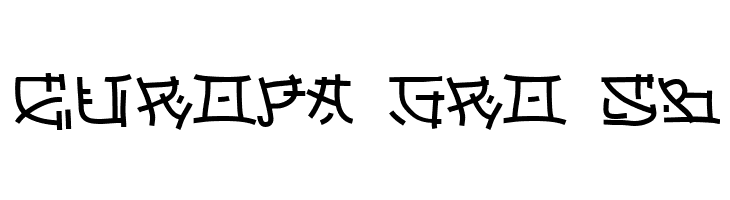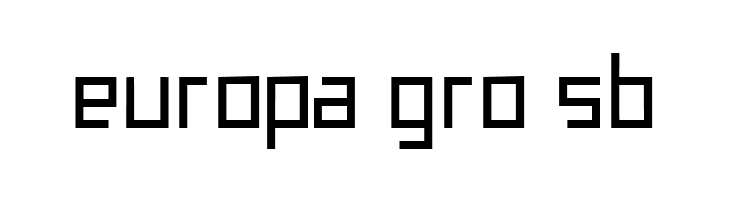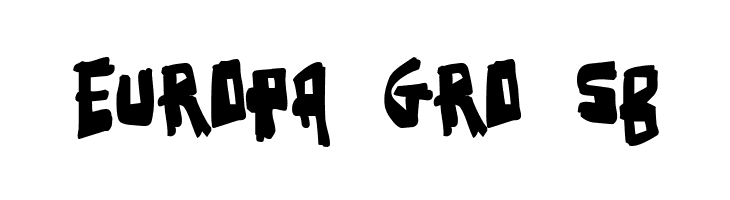
A dot matrix style font with a modern, tech-inspired aesthetic.
A decorative symbol font with numerous Christian cross variations.
A bold, geometric font with a futuristic and tribal aesthetic.
A playful and eclectic font with unique, decorative characters.
An edgy, thorn-inspired font with a bold and dramatic style.
A geometric, angular font with squared edges and uniform line thickness.
A bold, high-contrast serif font with a classic and authoritative style.
A bold, jagged font with an earthquake-inspired design.